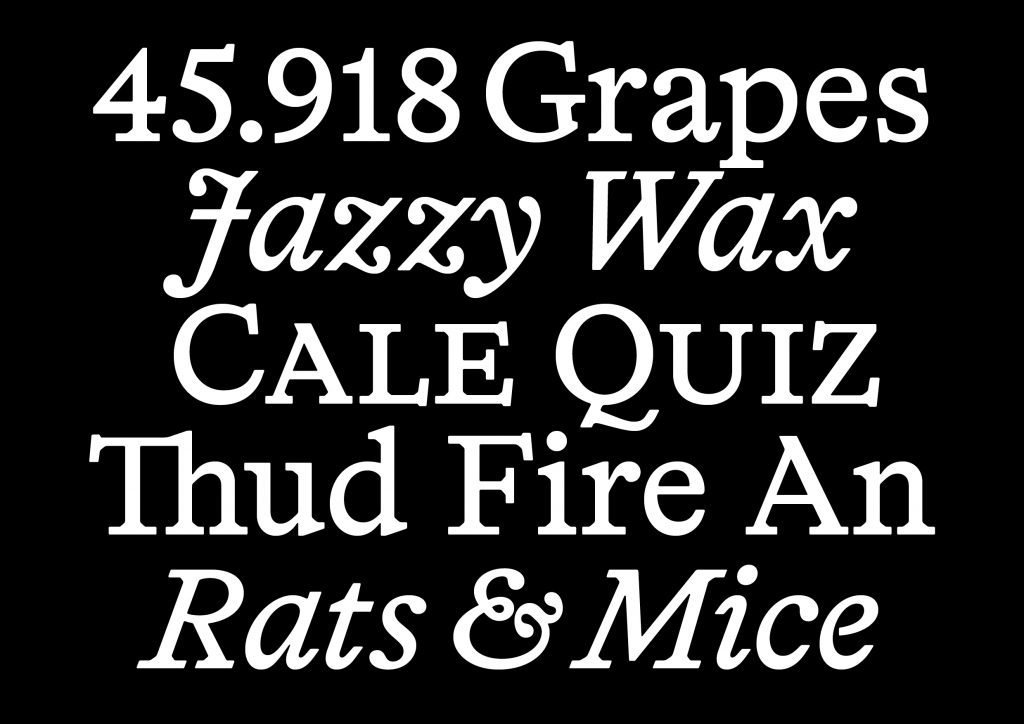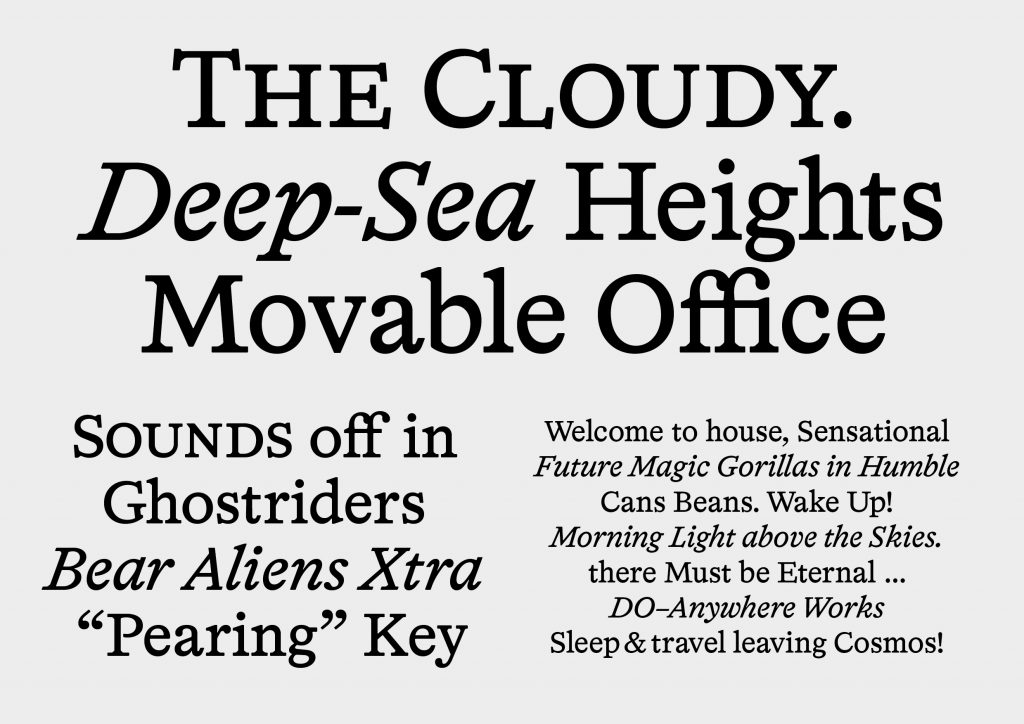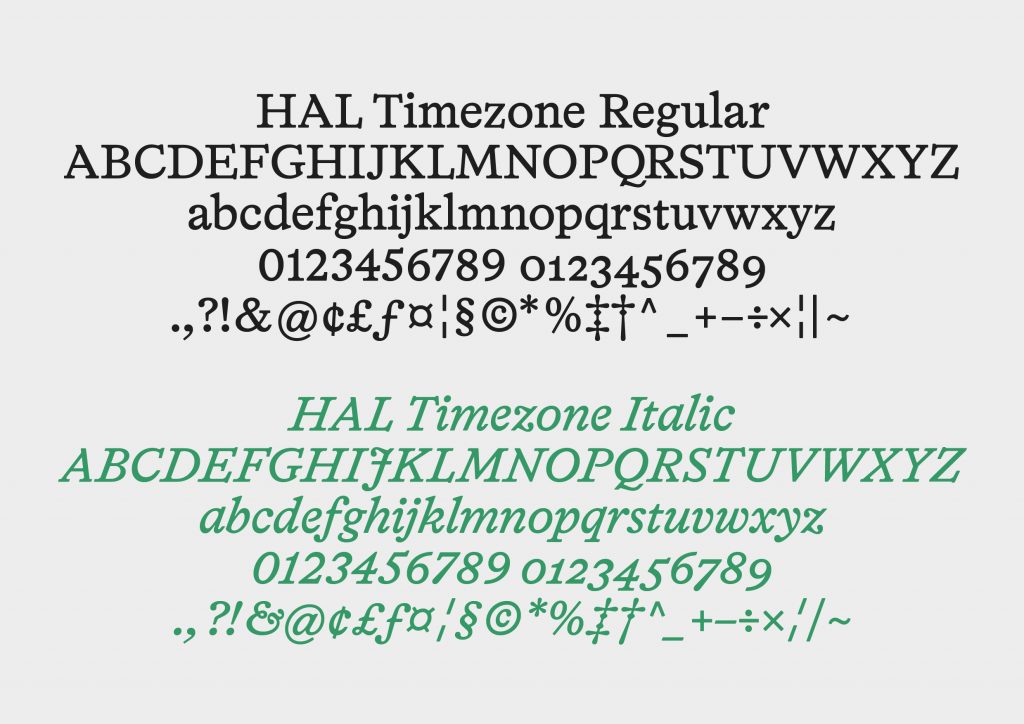
Name: Timezone
Designers: Elias Hanzer and Lucas Liccini
Foundry: Hanzer Liccini
Release Date: November 2021
Back Story: Berlin-based graphic design studio and type foundry Hanzer Liccini works across identities, publication design, web design, type creation, and print; often using the type side of its practice to inform the graphics side, and vice versa. Most of its work involves the use of custom typefaces and typographic experimentation, and Timezone was largely born out of this approach: “the font emerged out of our graphic design practice,” studio cofounders Elias Hanzer and Lucas Liccini said. “We wanted to have our own chunky serif to set type in books and publications.”
The pair added that Timezone has “gone through multiple design stages,” with the designers testing its use in print and making incremental improvements accordingly.
The font’s look and feel is inspired by early digital fonts and “type design from the phototypesetting era”, meaning the fonts that were used from the mid-20th century onwards with phototypesetters. These were the first commercial machines used instead of hot metal typesetting in newsprint, acting as the bridge between historical analogue printing processes and modern day offset printing methods. Phototypesetting had its heyday in the 1970s and 80s, and is now largely defunct.
One of Timezone’s main inspirations was Demos, a 1976 font designed by Gerard Unger and one of the first digital typefaces. “We were specifically drawn to the round edges, which Unger implemented to counteract sharp edges appearing blunt in print and the letters appearing less crisp,” said Hanzer Liccini. “It’s an overall aesthetic that we were immediately drawn to. All of the corner elements are rounded, giving the font a consistent appearance at various sizes.”
Why’s it called Timezone? According to the studio, it’s thanks to the all-purpose nature of the font: it can act across any application, size, “latitude, or longitude,” apparently. Currently, it only offers a Latin script, however, though there are multiple languages supported.
What are its distinguishing characteristics? As a low-contrast serif face, Timezone (like its inspiration Demos) has no sharp corners, instead bearing slightly rounded edges. It was designed to be a durable text font with high visibility, and comes in a regular and an italic, with additional small caps (including numerals) for both styles. “No matter the point size, application, latitude, or longitude, Timezone never sleeps,” said Hanzer Liccini. The weighty-seriffed upright style is sturdy and durable, while the italic has a dynamic, lively swing to it. “This slightly contrasting feeling in upright and italic, reminiscent of classical serifs such as Garamond, was helpful to include for the overall energy.”
What should I use it for? Thanks to its merging of almost classic, understated aesthetics with modern-day eyes on versatility across all manner of both technical and printed uses, Timezone is a workhorse. You name it, you could use it for it. However, its creators point out that it’s especially suitable for small text thanks to its low contrast; but in bigger sizes, the unique details (namely the characters’ round edges) come alive to “give it a special, almost analog feel.”
What other fonts would it pair well with? Again, it’s a workhorse, so pretty much anything. For more playful or techy designs, you could go wild and put it alongside something like KyotoTW, which is also inspired by the ’70s and ’80s — namely its video games (and typewriters); or even fellow round-edged font Sagittarius, which is inspired by vintage sci-fi. For things like publication design, wisdom might suggest pairing it with a sans-serif font with similarly subtle quirks — maybe Swiss-leaning 2020 font Forever Grotesk or even another globetrotting font, Typotheque’s Ping.